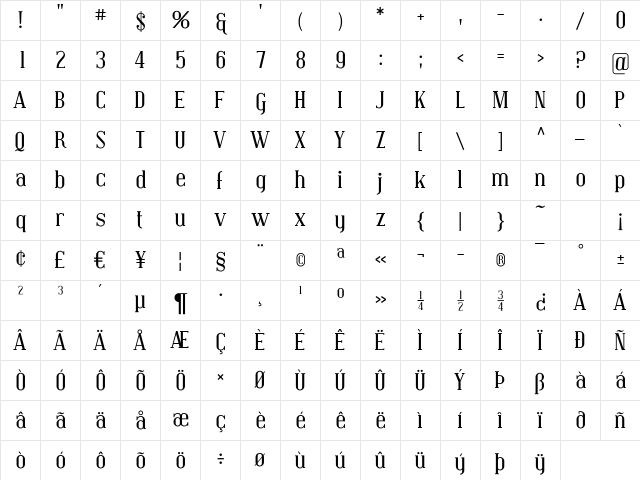
Covington Regular Free Font
Covington Regular
Designer: Derek Vogelpohl
Design Context for Covington
Covington is a composed and adaptable typeface that performs quietly and consistently across a wide range of design contexts.